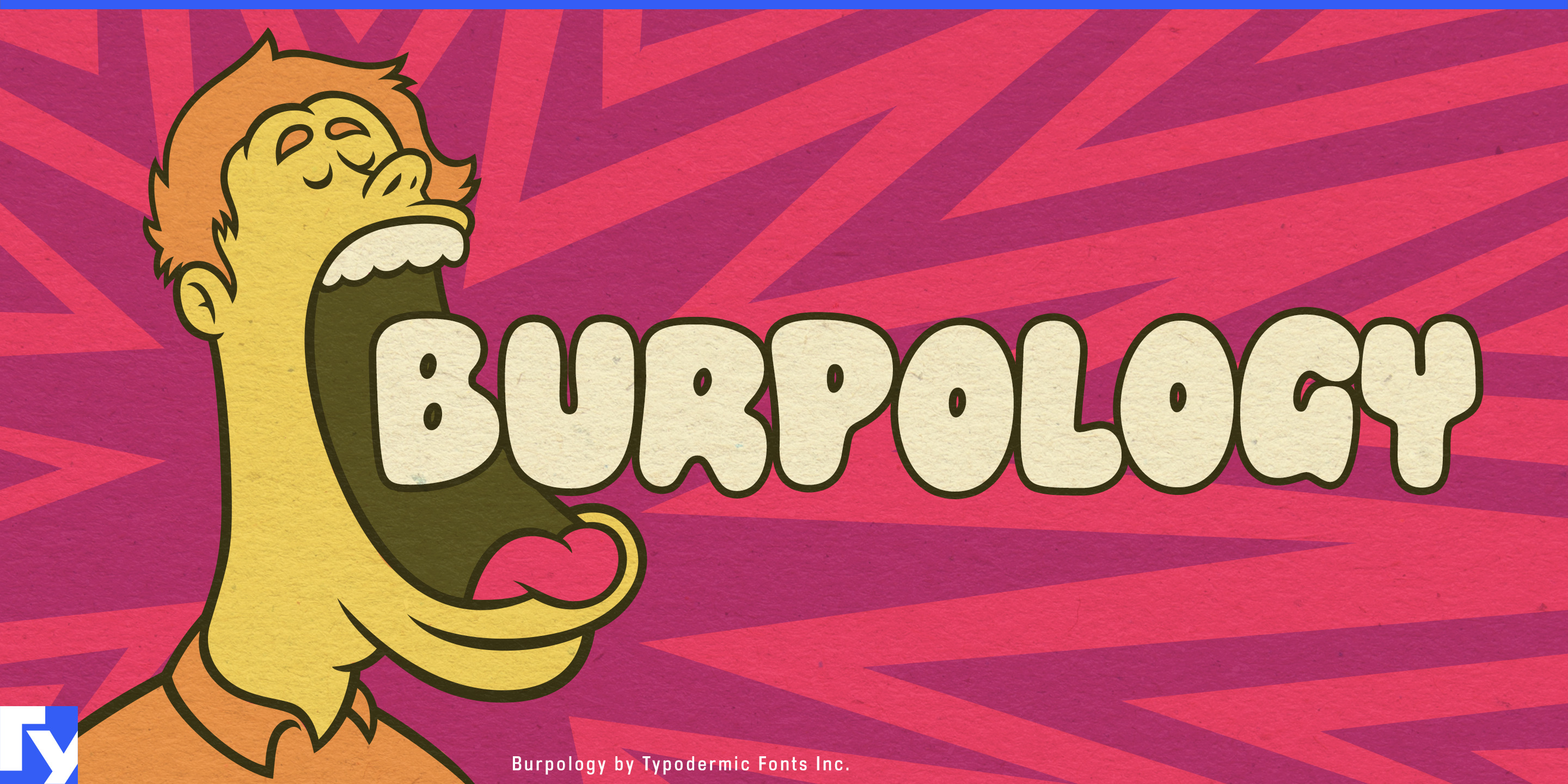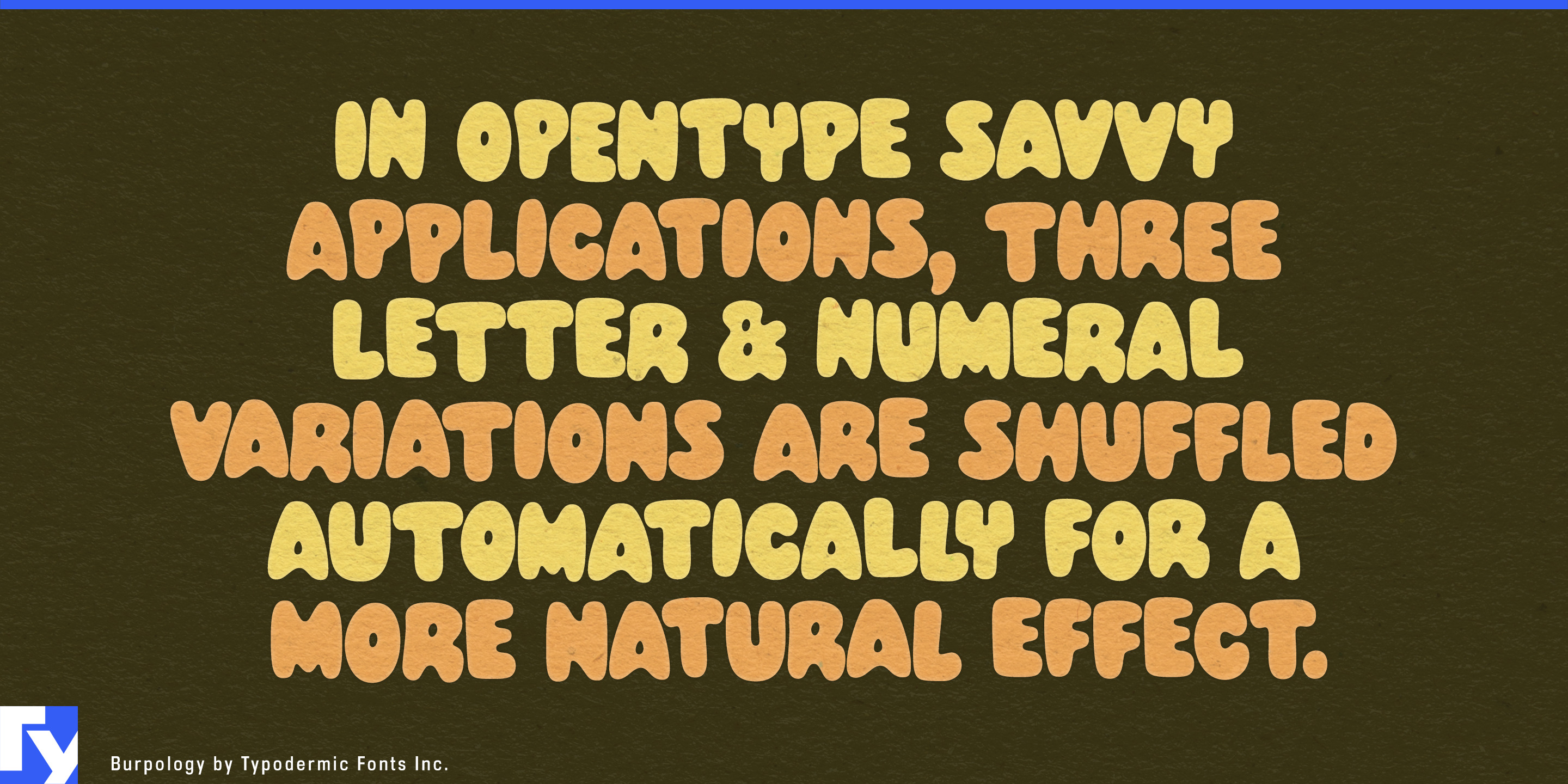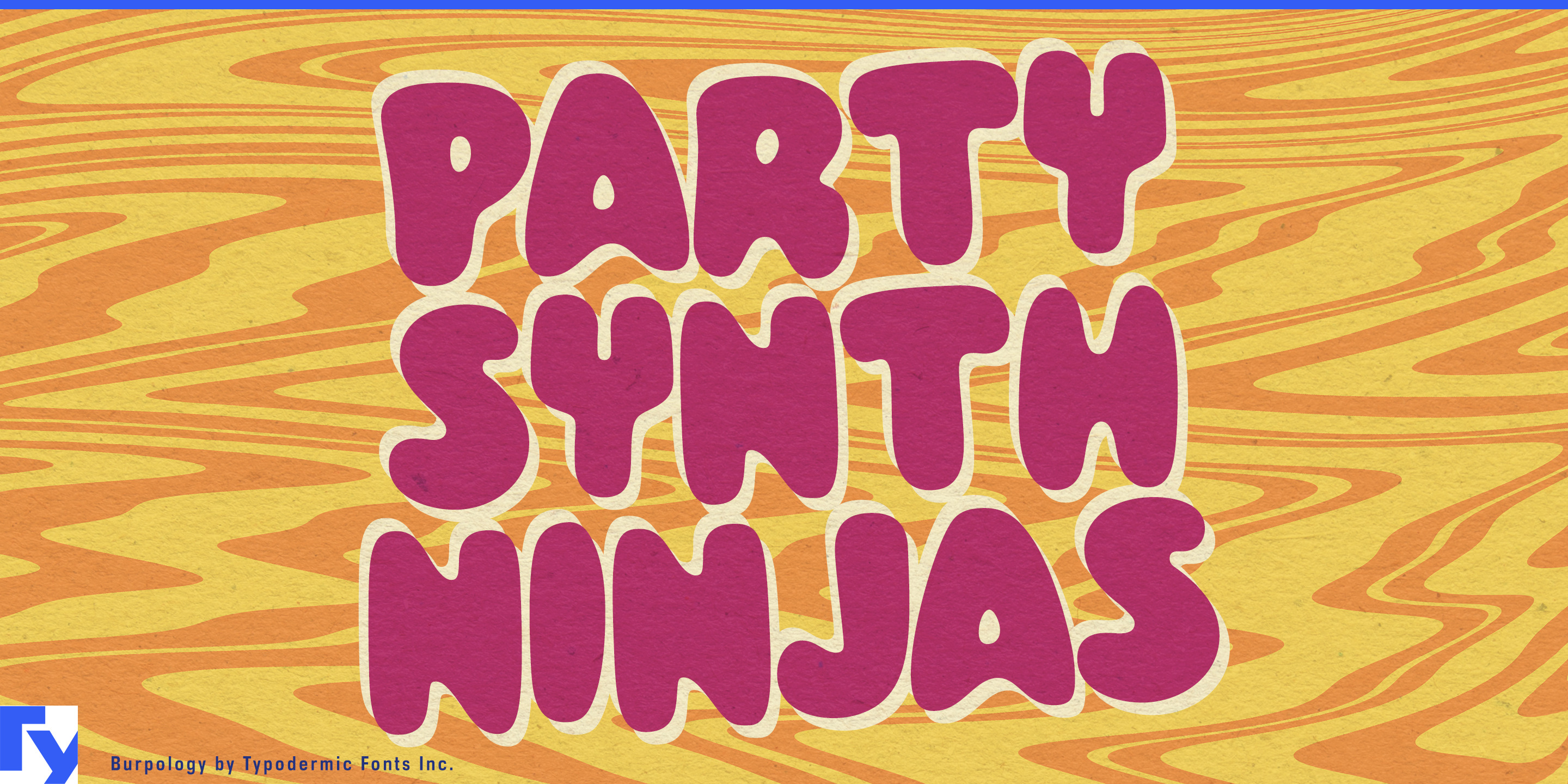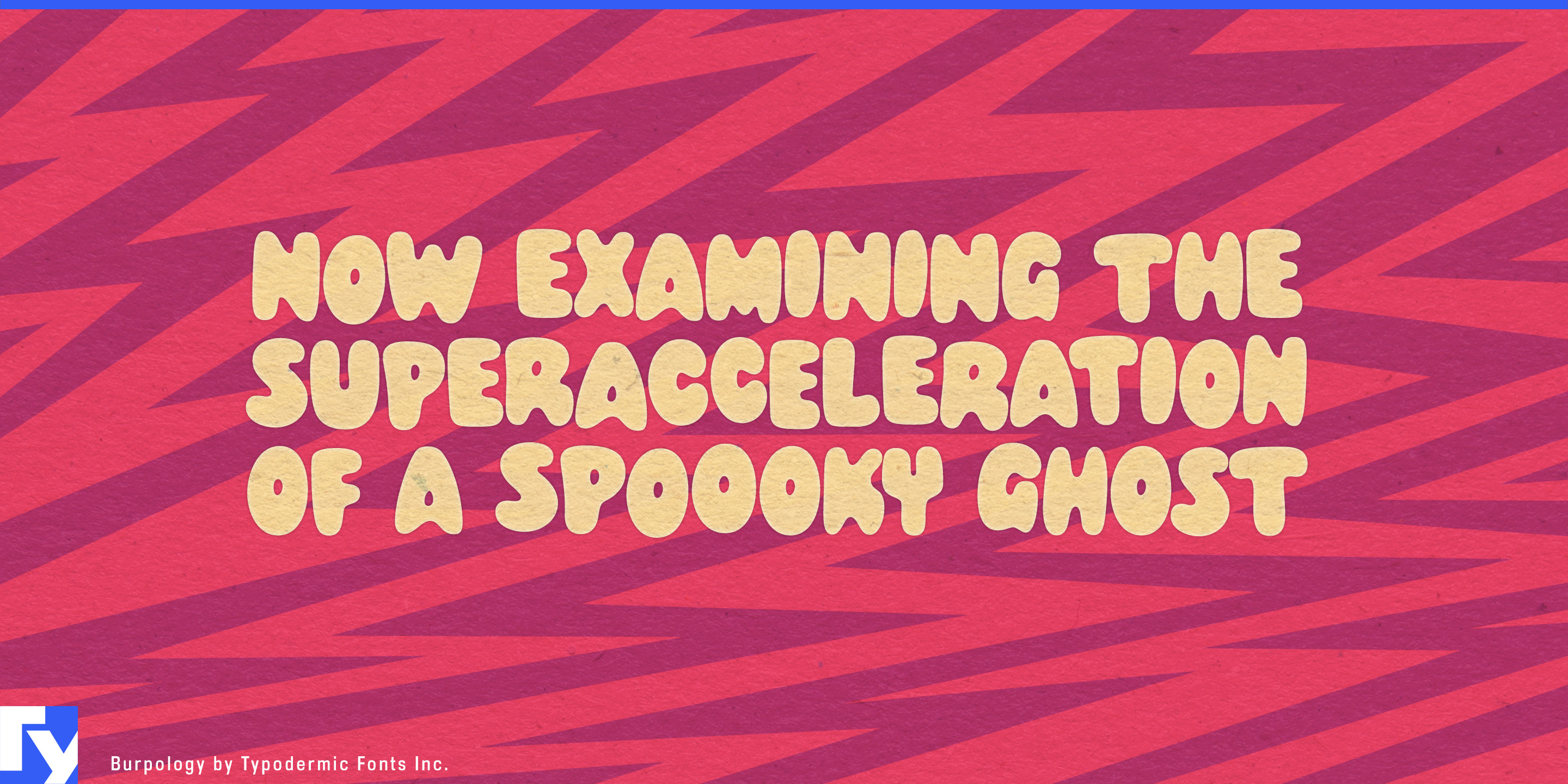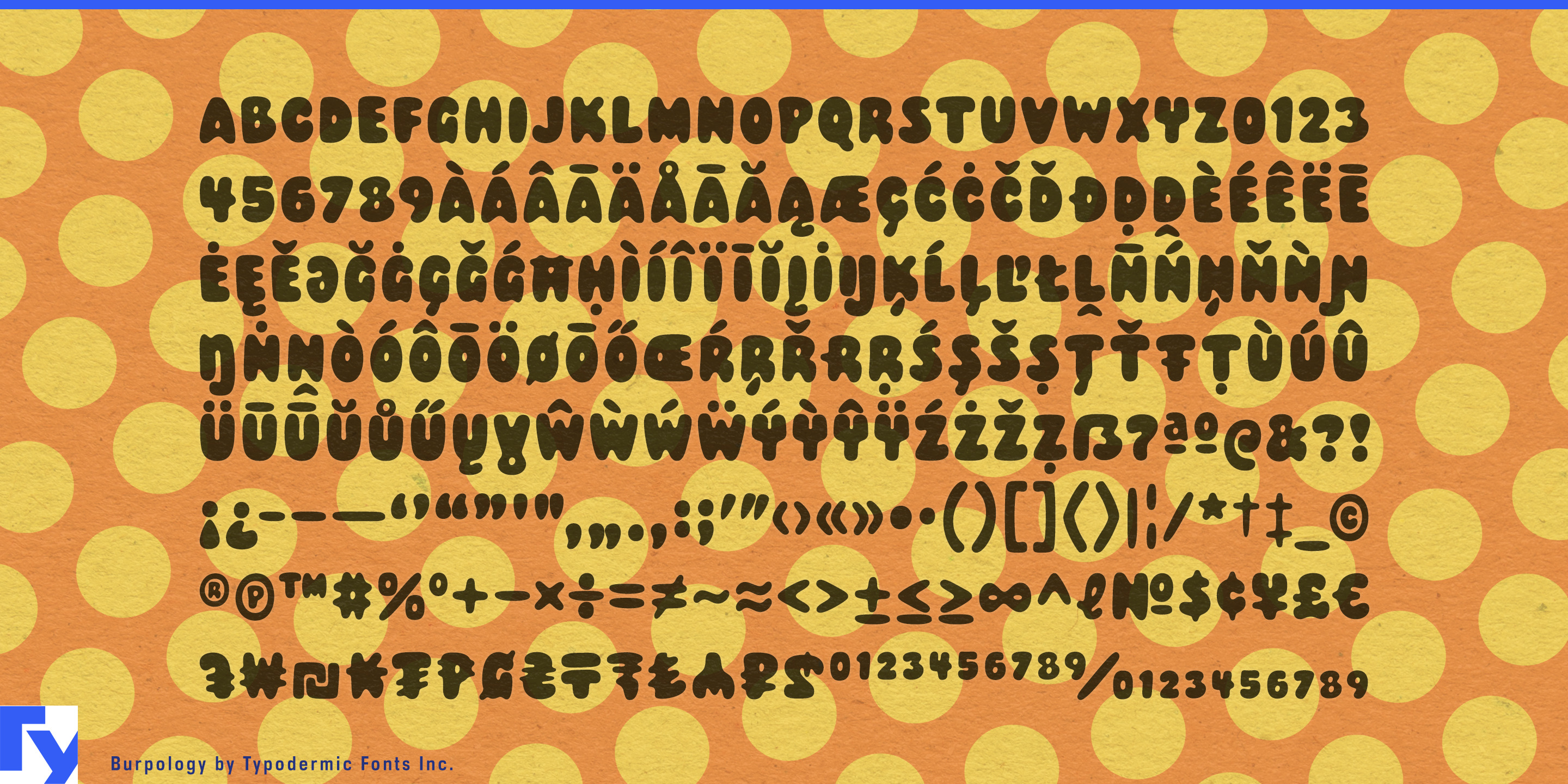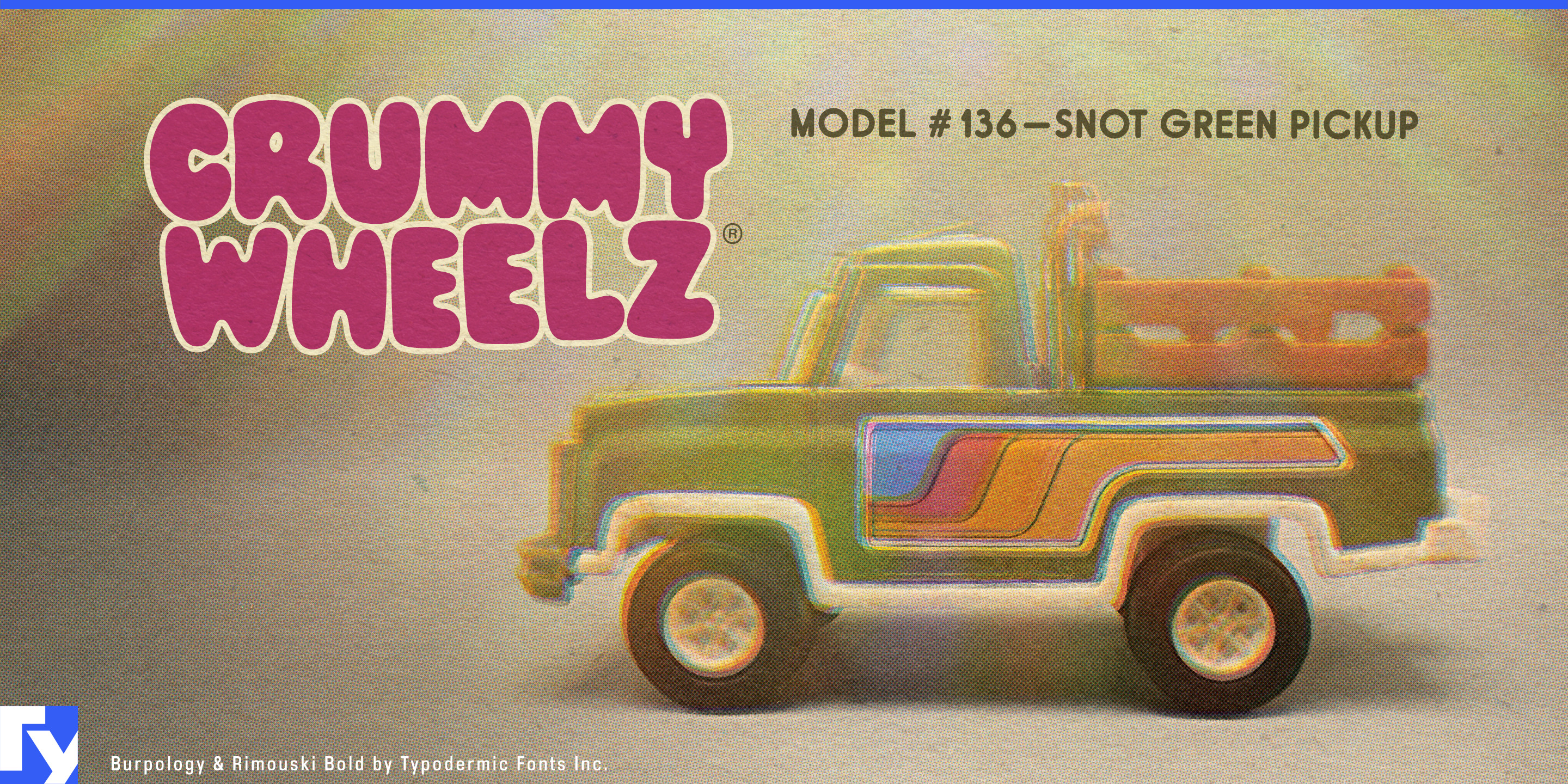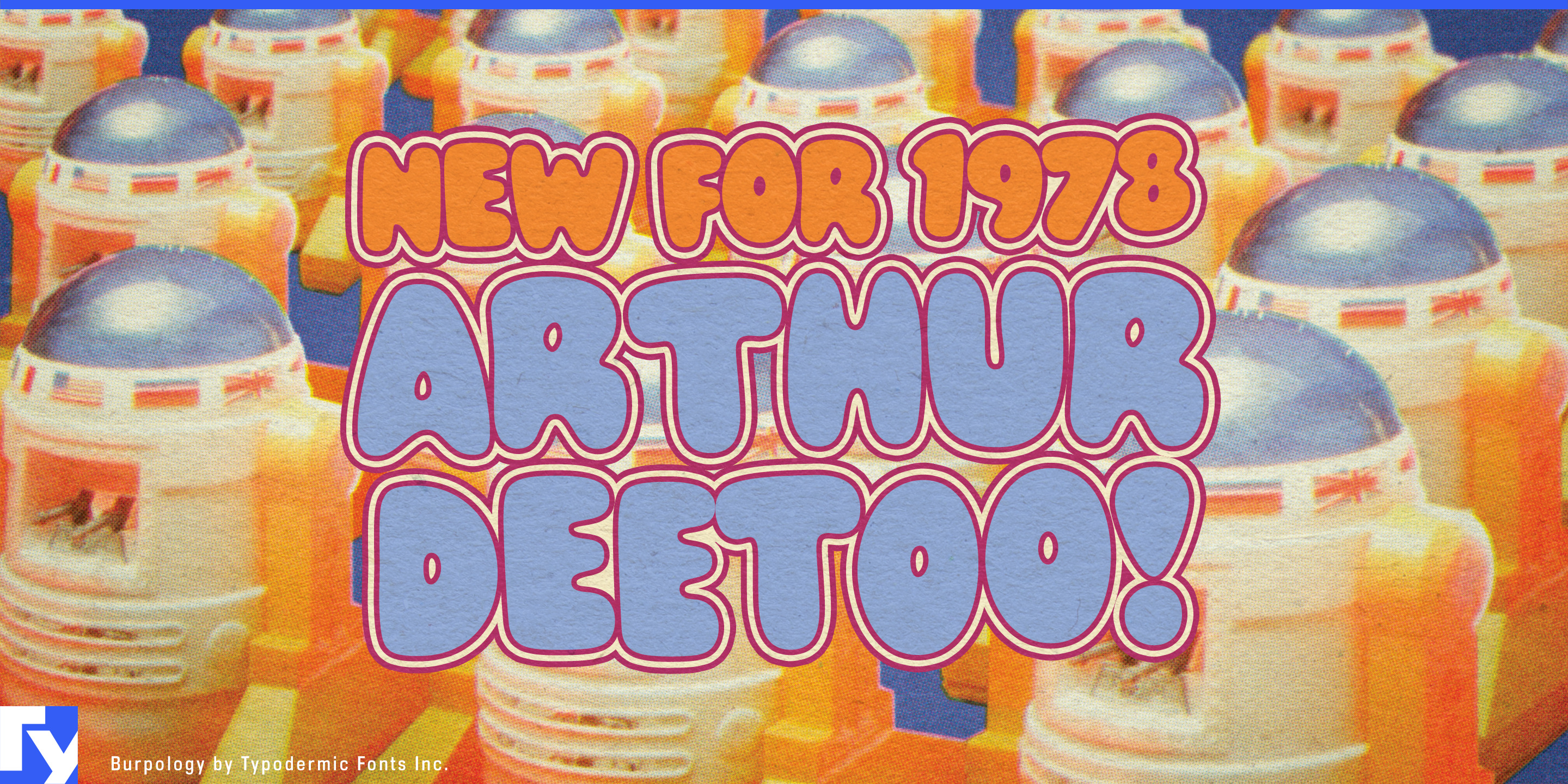
Burpology channels the bold, bubbly spirit of 1960s and ’70s cartoon lettering—soft, rounded forms with a confident, space-filling presence. Its heavy weight, snug spacing, and small counters create wall-to-wall headlines that feel solid, friendly, and impossible to ignore. The letterforms are deliberately imperfect, adding the warmth and charm of something drawn by hand rather than plotted by a machine.
To keep that energy alive in longer text, Burpology cycles through three variations of every letter and number. This subtle shuffle keeps repeated shapes from looking cloned, giving your words the organic rhythm of true hand lettering.
Burpology is made for projects that need to grab attention with personality—snack and beverage packaging, streaming platform promos, toy and game branding, event signage, or playful pop-up shop graphics. Its broad Latin-based language support means that same joyful boldness works across many markets.
Big, round, and full of life, Burpology turns any headline into an instant focal point.